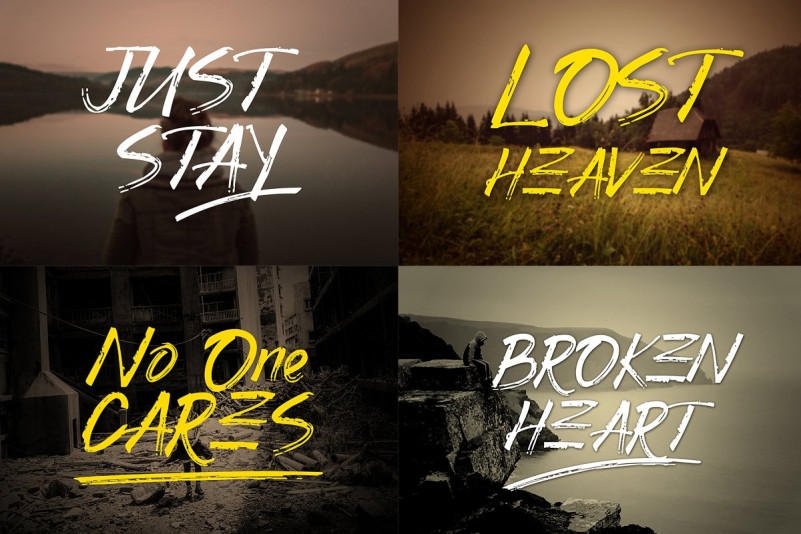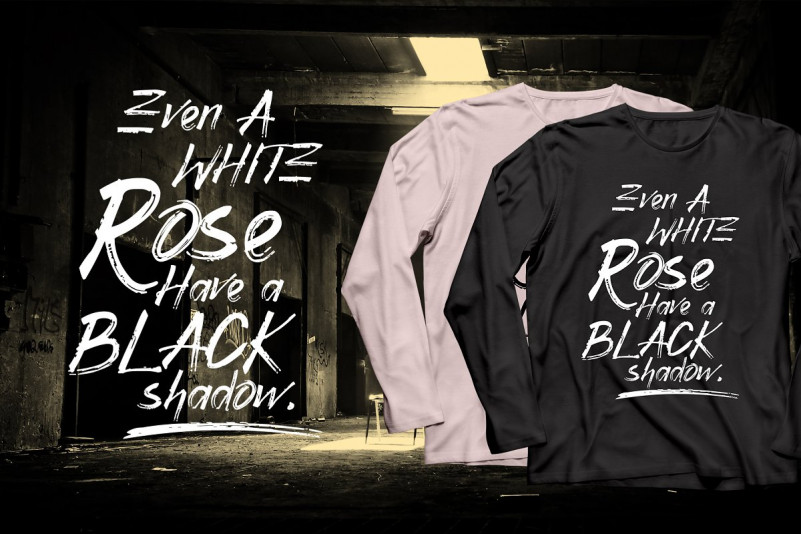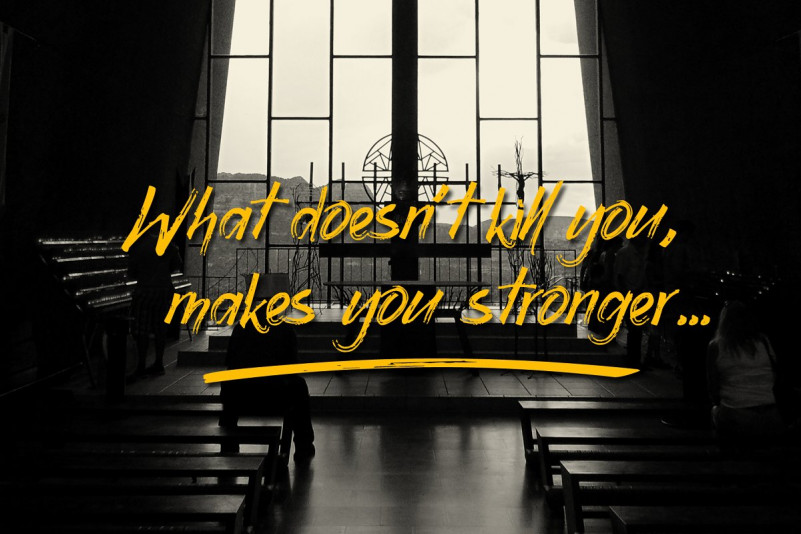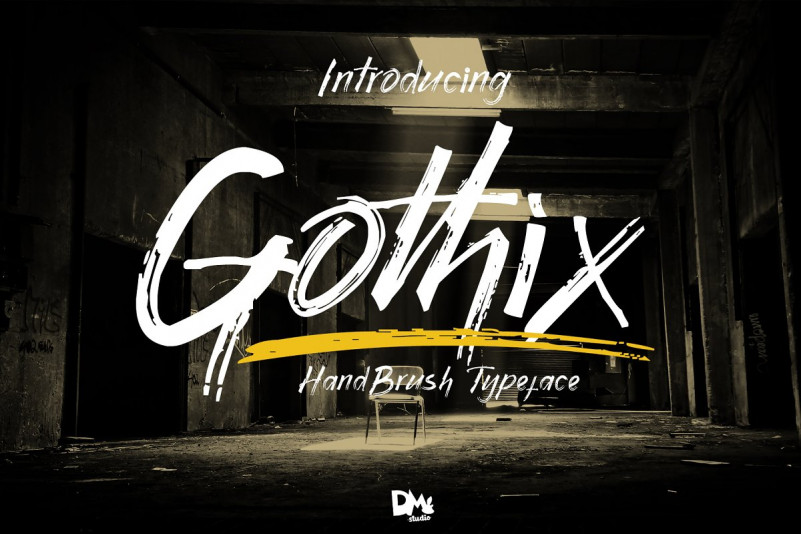
Gothix HandBrush Font
Hi Designer! This is a mdern brush font, is a font with a modern look and energetic. If you are looking for a brush style suited to your design then it’s here! Introducing Gothix Font. It is designed and shared by Dm.Studio. Gothix HandBrush Font, is an artistic handbrush-textured typeface. This font help you to make something which need the natural hand-written letters, like using the real brush. Great choice for logos, branding, wall arts, digital arts, posters, t-shirt printing design, packaging, quotes, etc.